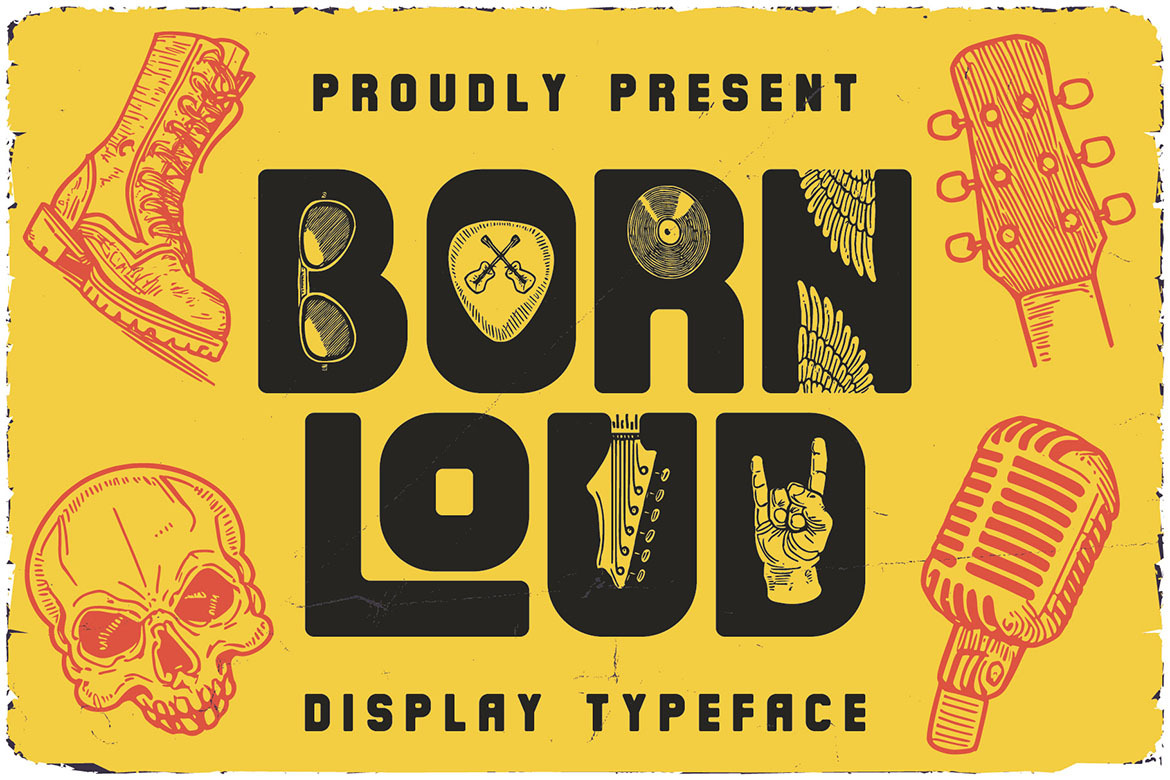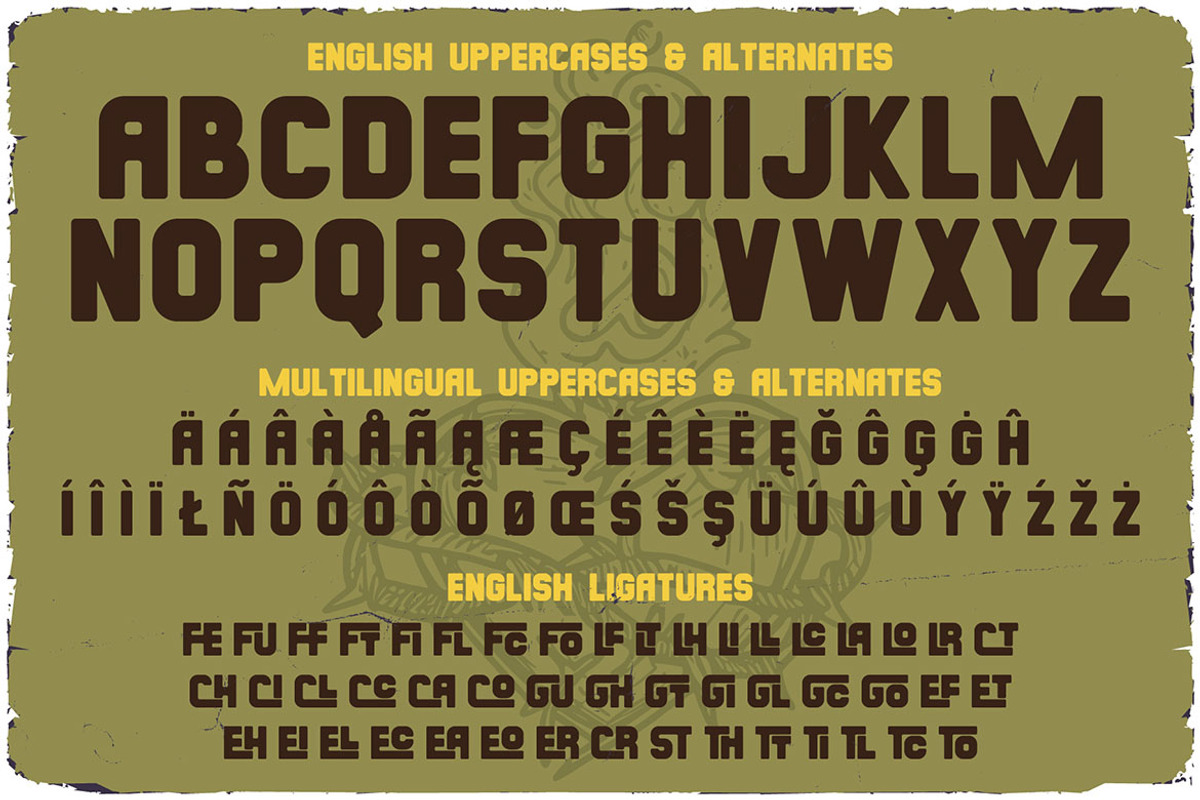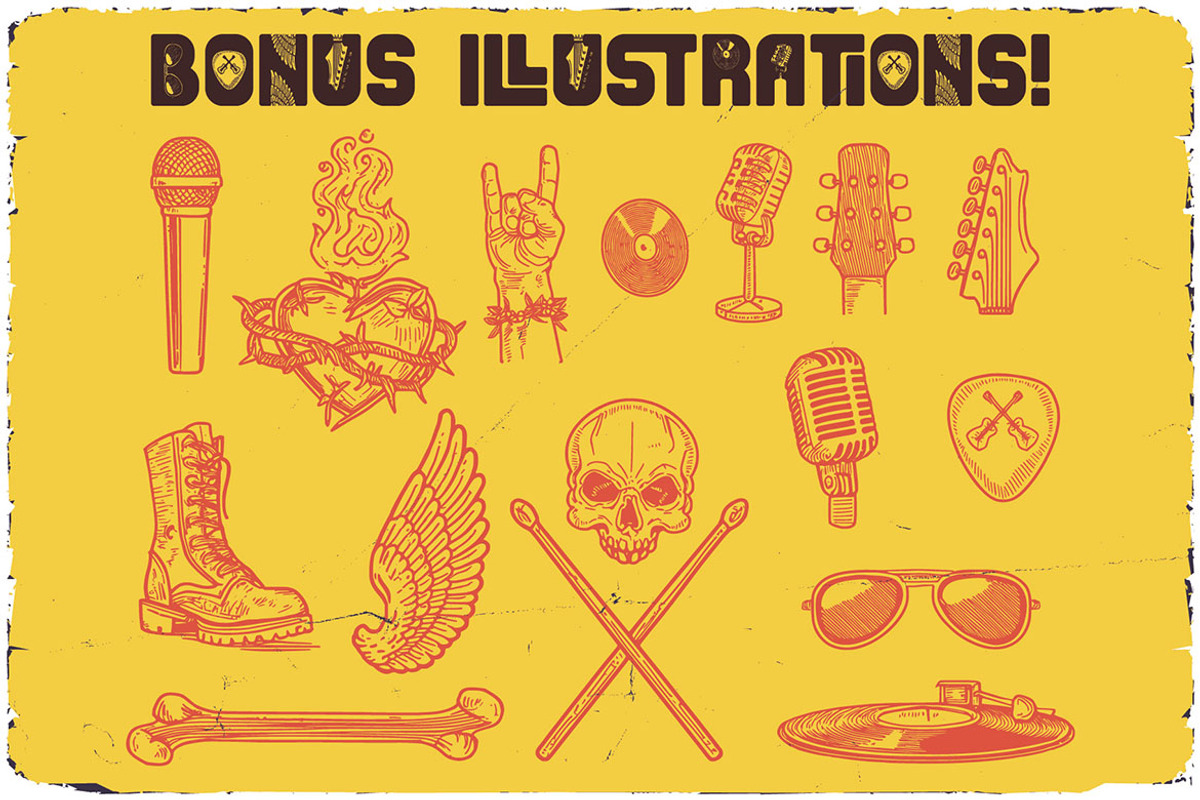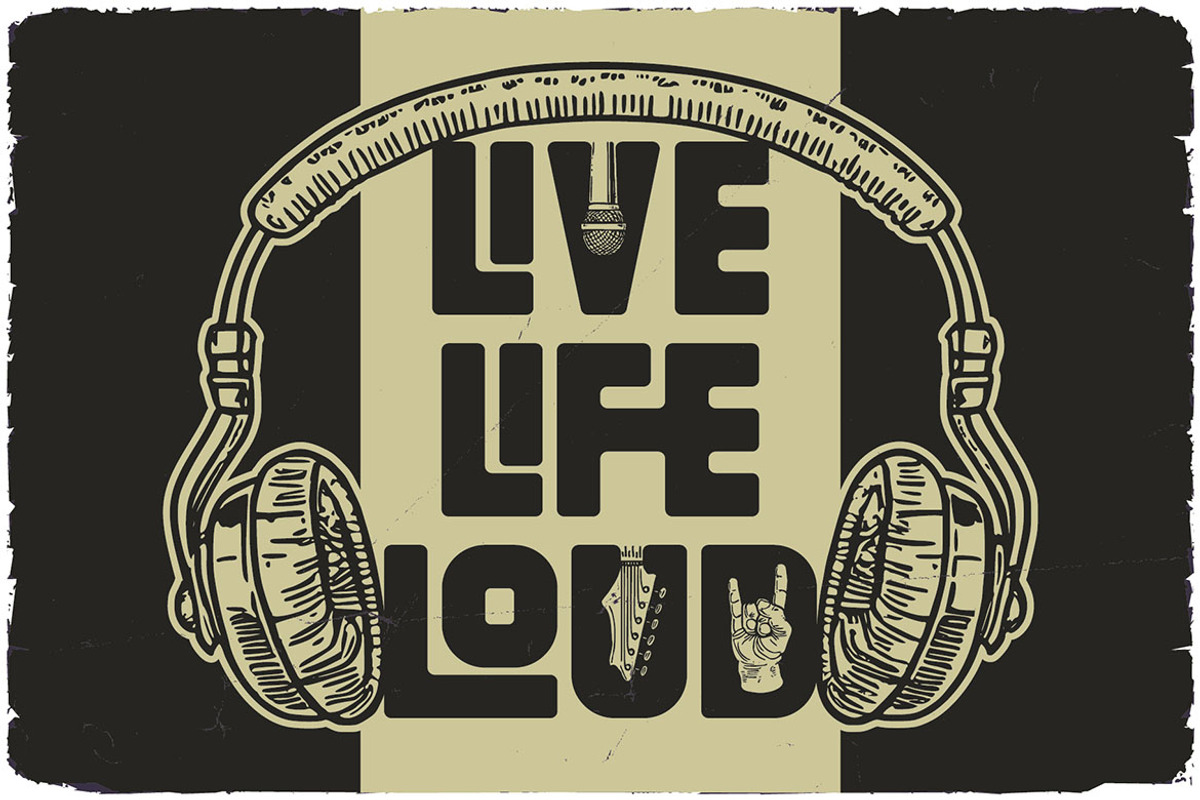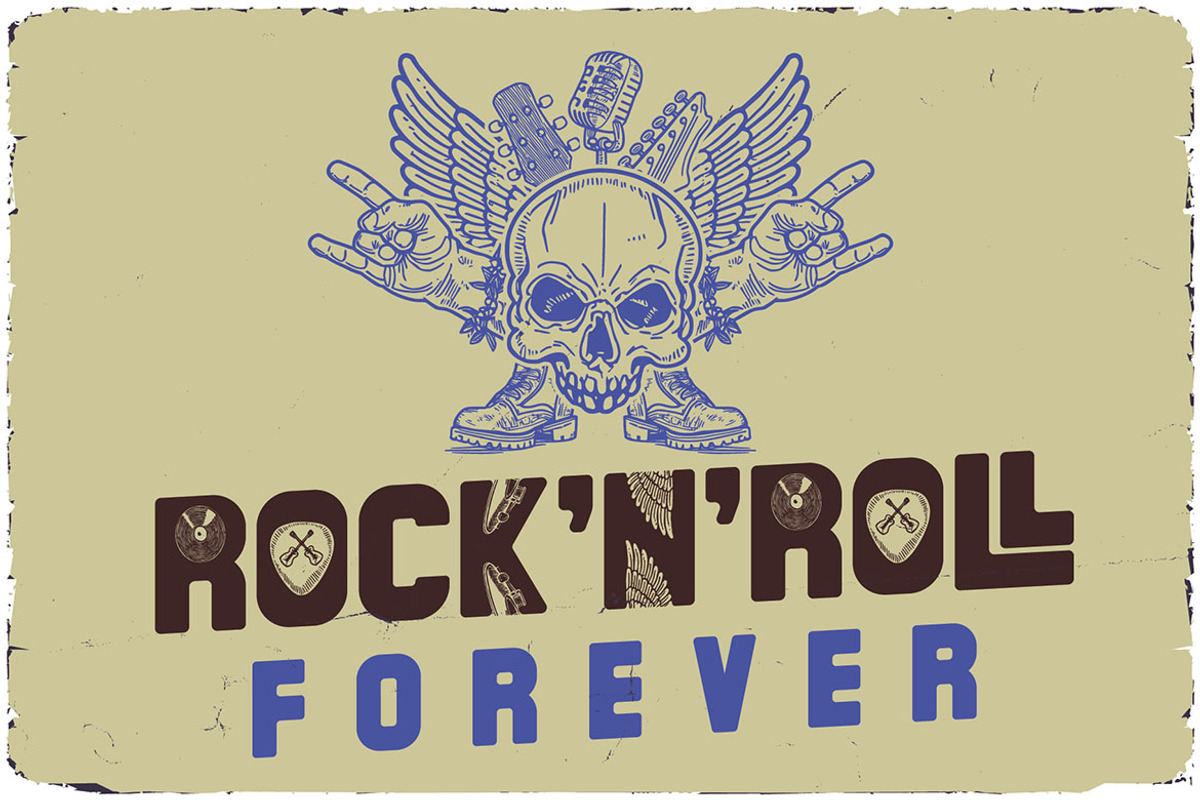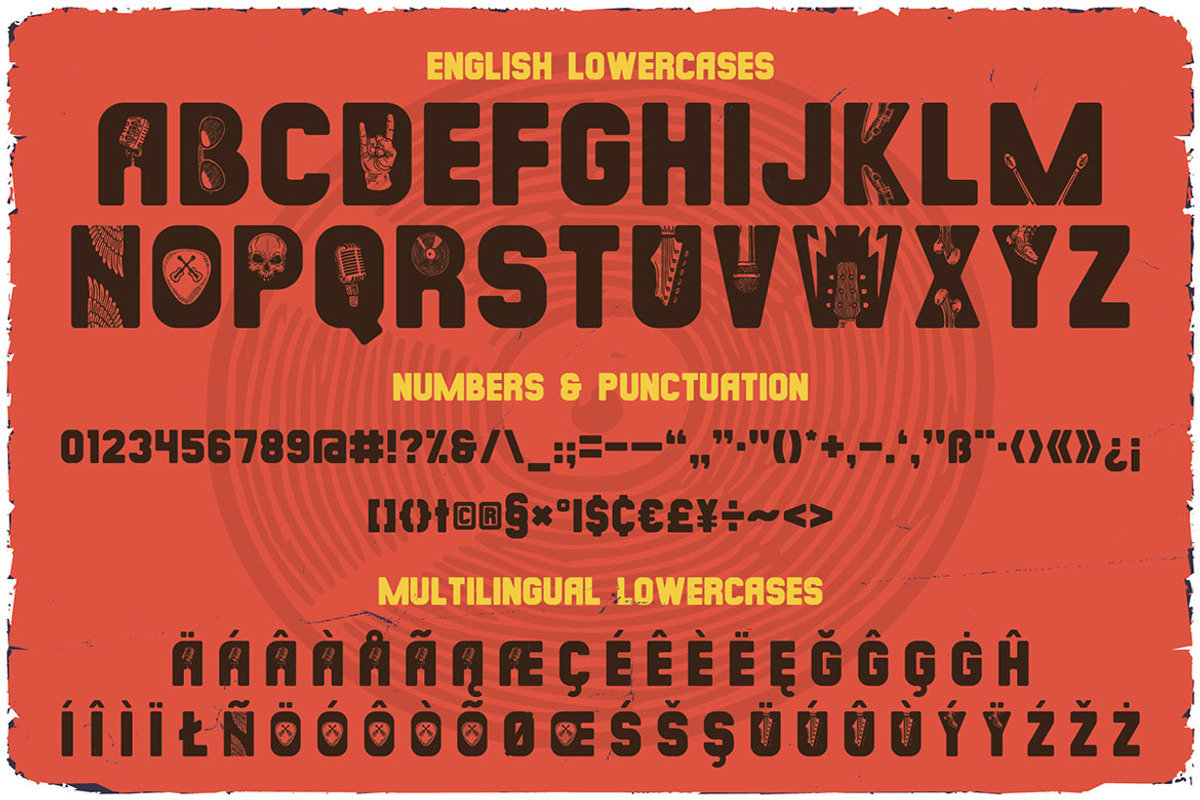
Born Loud Decorative Font
Unique, crazy, bold, retro, decorative & display sans serif font. Comes with multilingual support, music style alternates & lot of ligatures - great for your new logo, monogram or branding project.
- Multilingual support, music style alternates & lot of ligatures
- Great for your new logo, monogram or branding project